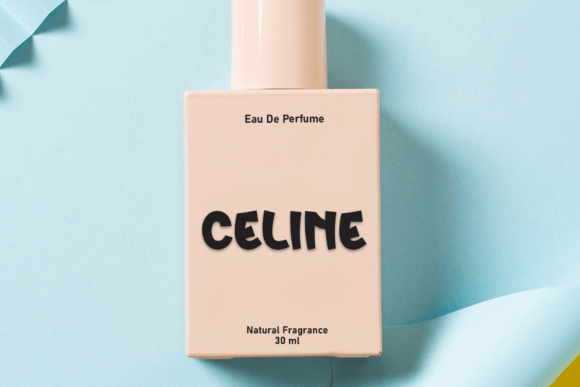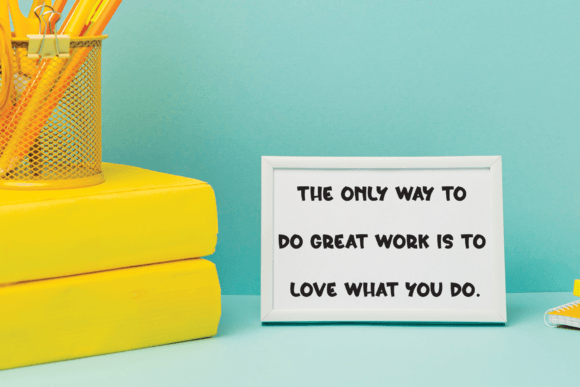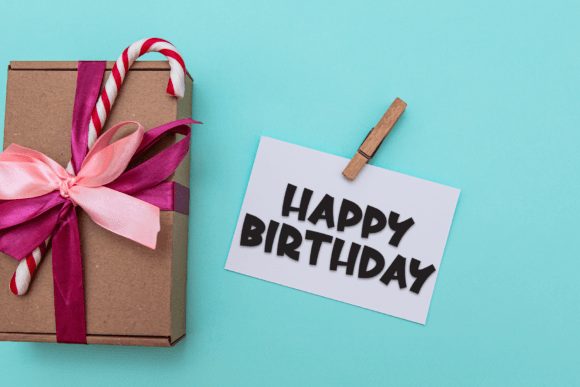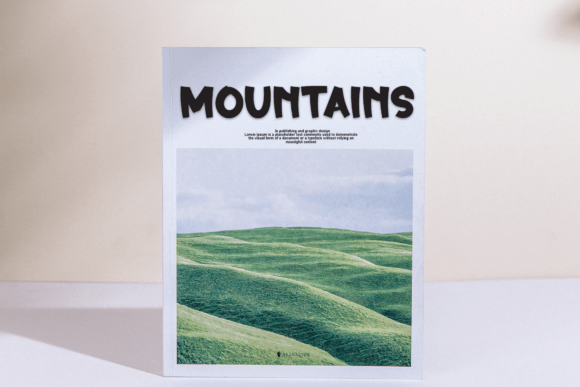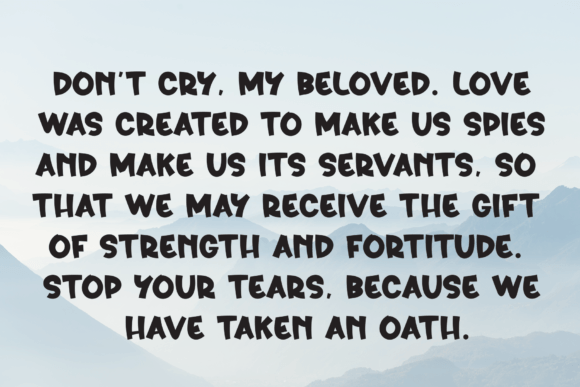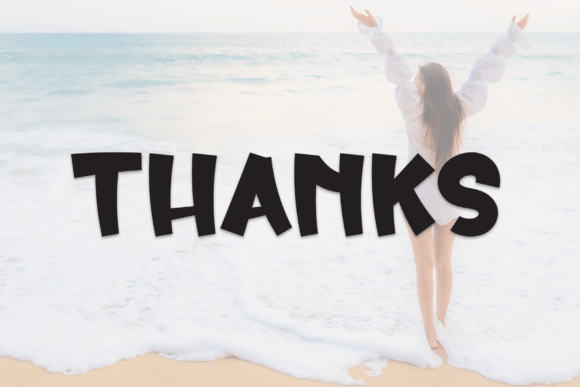
The Perfect Font for a Sunny Day
There’s nothing quite like the feeling of brainstorming a new design project on a warm summer morning. The sun is shining, your coffee is hot, and your imagination is running wild. As you start to envision your latest creation, you know that the right font can make all the difference. That’s where the Happy Summer Font comes in – a sweet and friendly handwritten font that’s perfect for capturing the carefree spirit of the season.
Whether you’re designing a summer-themed poster, a beach-inspired website, or a birthday invitation for a loved one, the Happy Summer Font is a versatile choice that’s sure to bring a smile to your face. With its natural and unique style, this font is a valuable addition to any designer’s toolkit, offering endless possibilities for creativity and self-expression.
Key Features of Happy Summer Font
- Unique Characteristics: The Happy Summer Font features a unique, playful design with bold and rounded lines, perfect for creating a fun and carefree atmosphere.
Happy Summer Font Review
Overall, I think the Happy Summer Font is a lovely addition to any design project. It’s perfect for summer-themed websites, social media posts, or even print materials.
The font is quite playful and fun, making it ideal for capturing the carefree spirit of summer. It’s also relatively easy to read, even at smaller font sizes.
- ✨ The font’s swashes and flourishes add a touch of whimsy and personality to any design.
- ✨ The font’s bold weight is perfect for headings and titles, making them stand out from the rest of the content.
- ✨ The font’s OpenType features allow for some great ligatures and alternates, which can add some extra flair to your designs.
- ⚠️ The font may not be suitable for more formal or professional designs, as it can come across as a bit too playful.
- ⚠️ The font’s readability can suffer at very small font sizes, so be sure to test it out at different sizes before committing to it.
Overall, I think the Happy Summer Font is a great choice for designers looking to add a bit of fun and personality to their summer-themed projects.
For optimal results, use Happy Summer Font in conjunction with bright and colorful backgrounds to create a fun and playful atmosphere.
Happy Summer Font is perfect for creating summer-themed designs, such as invitations, posters, and social media graphics. It’s also great for adding a touch of whimsy to your branding and marketing materials.